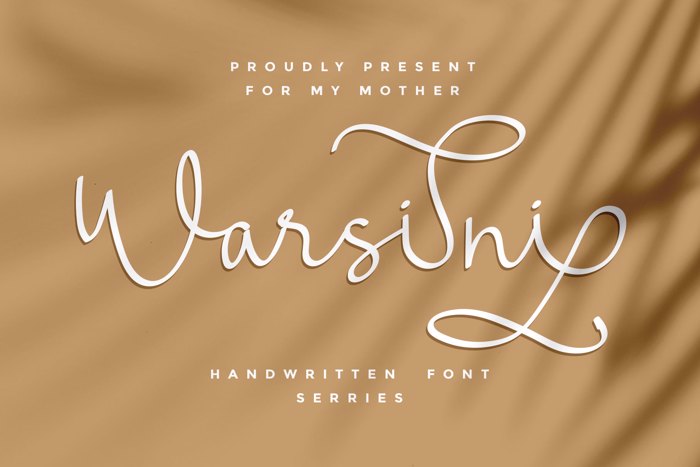
Warsini Font
Using Warsini Handwritten Font will definitely make your text stand out. Warsini comes with upper and lowercase Basic Characters, Numbers and Punctuation. Give it a try! You will surely love it